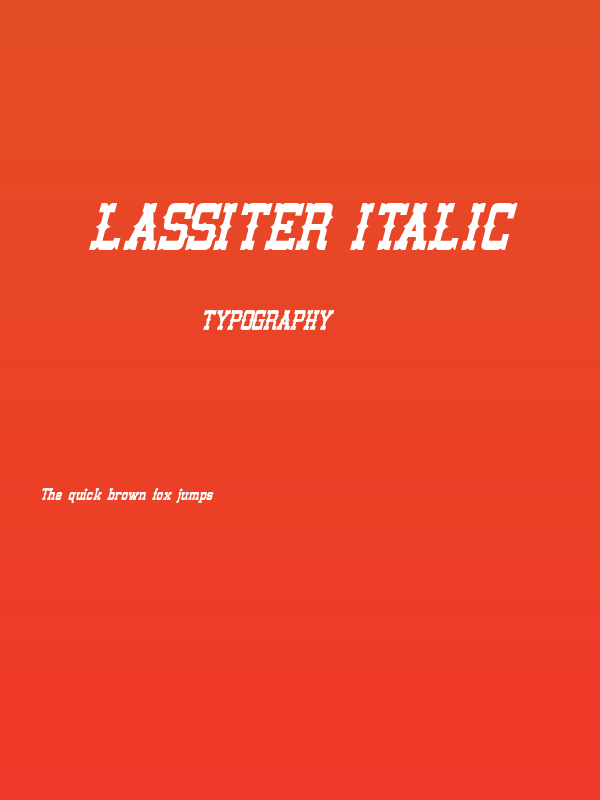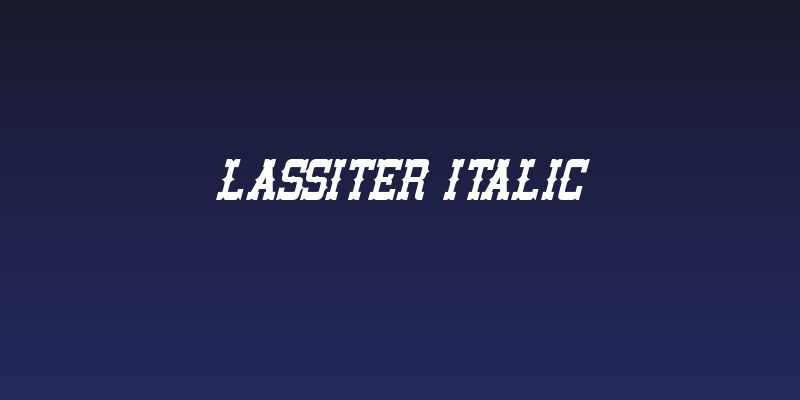
Lassiter Italic Font
Lassiter Italic Description
This font features a bold and dynamic style with a distinct italic slant, giving it a sense of movement and energy. The characters are robust and slightly condensed, with sharp, angular serifs that add a touch of aggression and strength. The uppercase and lowercase letters maintain a consistent style, with the lowercase being slightly more rounded. Numbers and special characters follow the same bold and angular design, ensuring uniformity across all glyphs. The font's unique style makes it stand out, suitable for projects that require a strong visual impact.
| Overall Style | Modern, Energetic |
| Proposed Projects | Ideal for sports branding, action movie posters, dynamic logos, and edgy graphic design projects. |